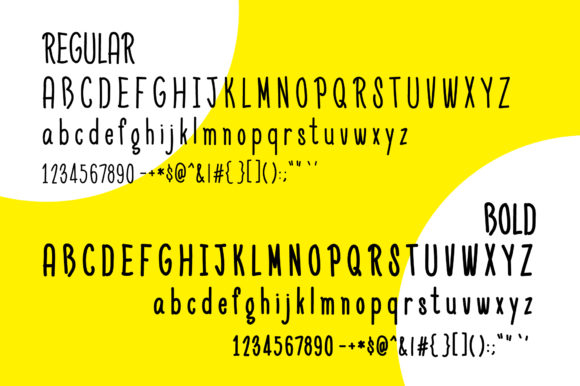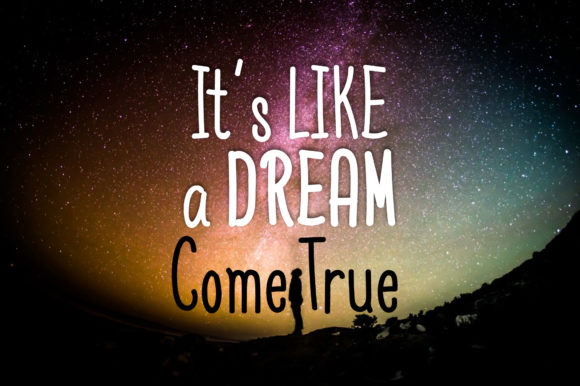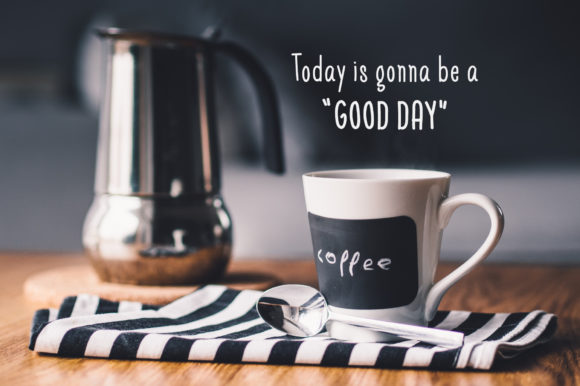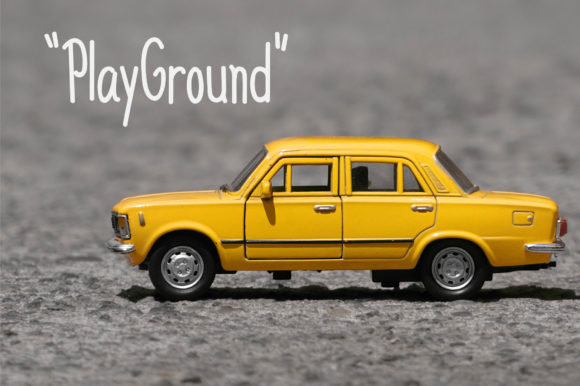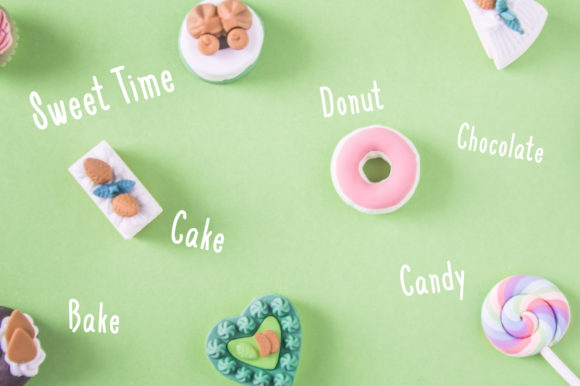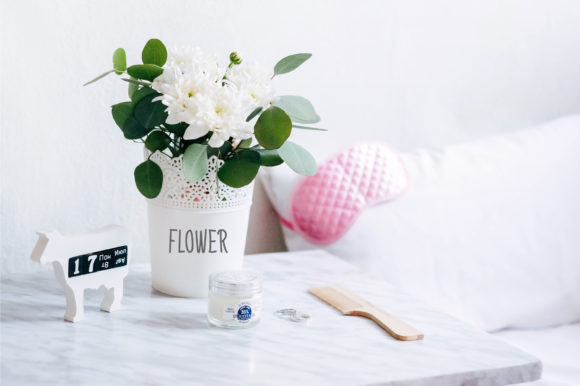
Daddy Long Legs Font
About Daddy Long Legs Font
Daddy Long Legs is a sweet and quirky handwritten font. Its natural and unique style makes it incredibly fitting to a large pool of designs. The only limit is your imagination!